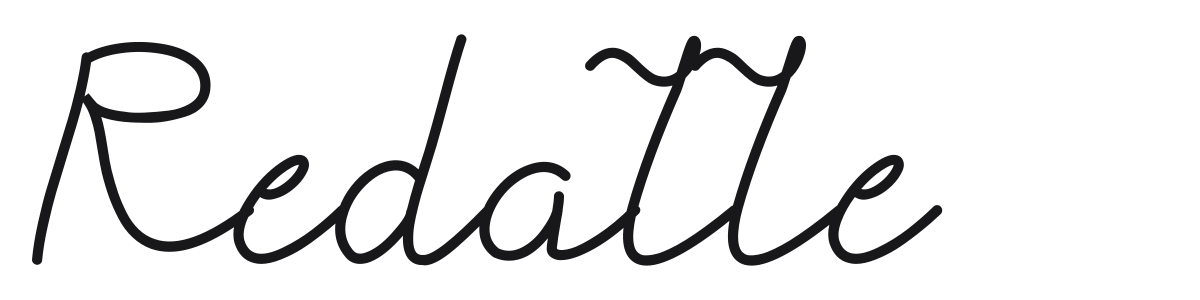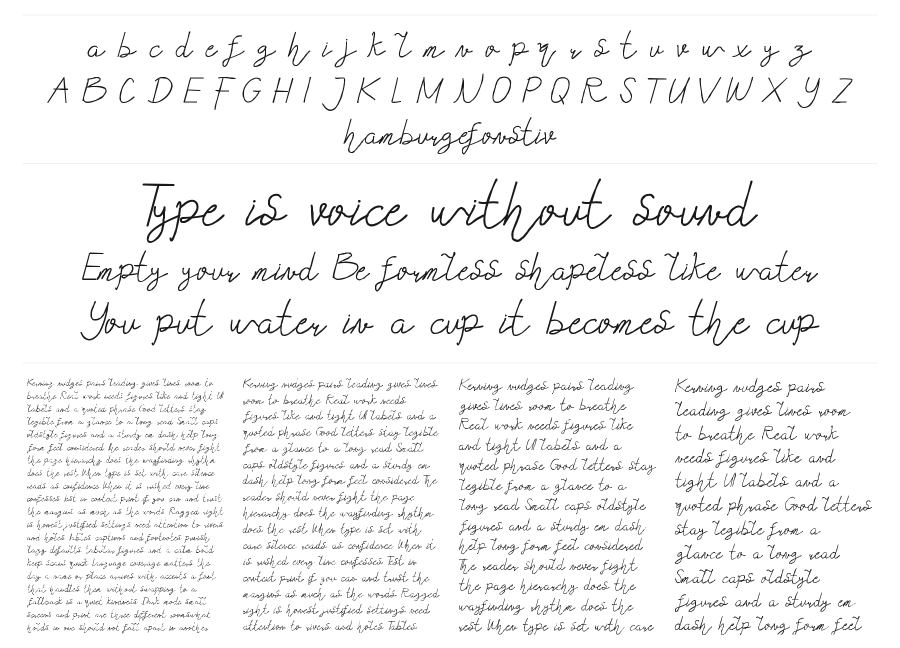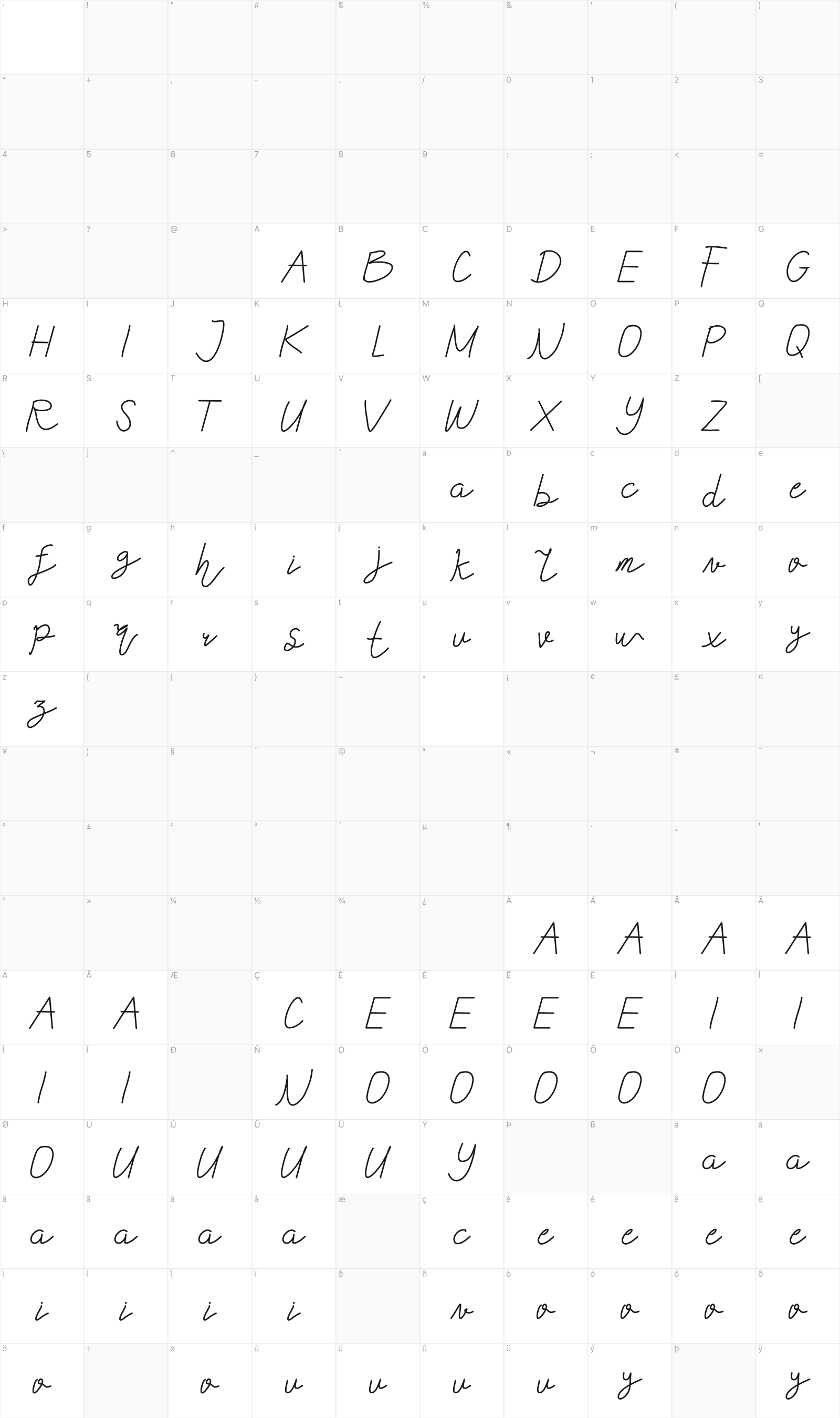
Redalle
Redalle is a monoline hand-lettered script with flowing connected strokes and a casual, effortless feel. The thin, unvarying line weight keeps it airy and modern, while the generous loops and sweeping connectors give it warmth and personality. It sits naturally in branding, packaging, and any context that wants handcrafted charm without feeling overwrought.